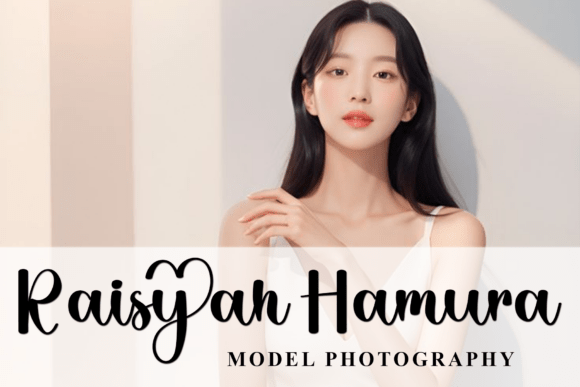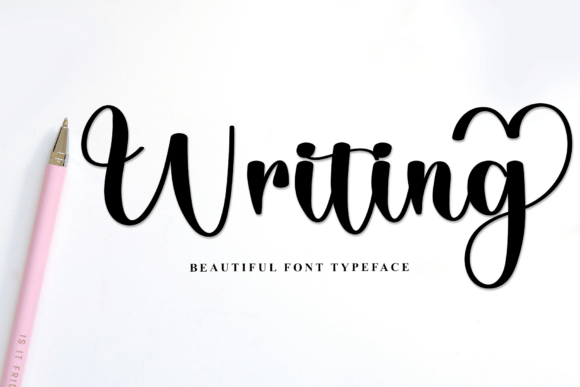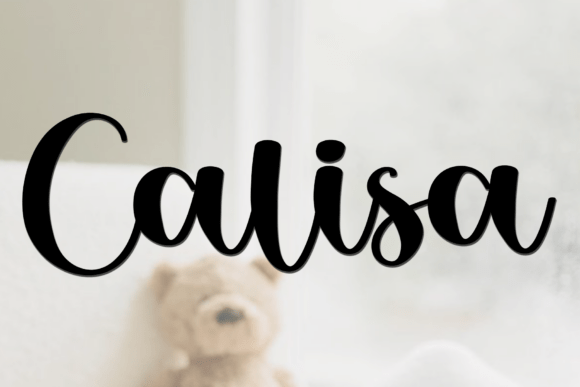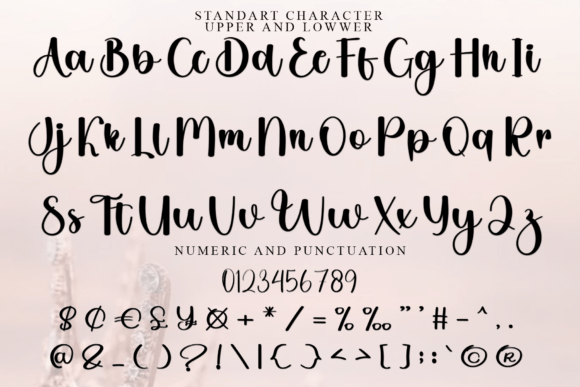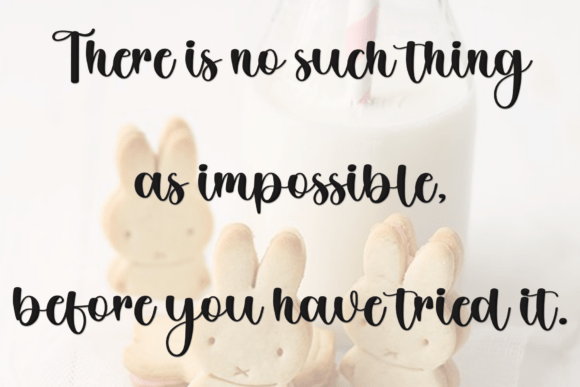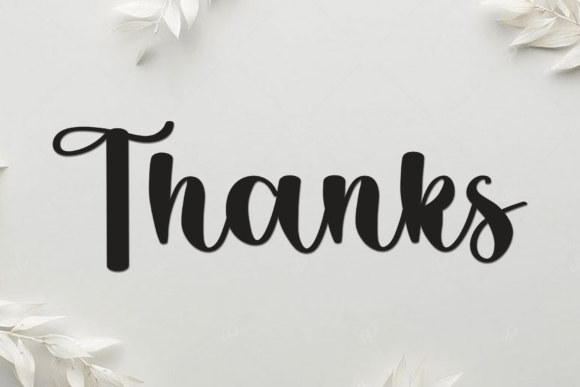
Daisy Wedding Font: Elevate Your Designs with a Touch of Elegance
Are you searching for a font that adds a unique and soft touch to your designs? Look no further than the Daisy Wedding Font. This beautiful and eye-catching font is designed to make your creative projects stand out with its distinctive strokes and special character. In this article, we’ll explore the features and benefits of the Daisy Wedding Font, and how it can elevate your designs across various artistic and creative fields.
A Unique and Versatile Font
The Daisy Wedding Font is a one-of-a-kind font that boasts a soft and unique touch. Its distinctive strokes give it a special character, making it perfect for a wide range of design projects, crafts, and other creative works. With various characters, this font is versatile and can be used to create stunning visual content that appeals to many audiences.
Ideal for Design Projects and Crafts
The Daisy Wedding Font is perfect for a wide range of design projects, including:
- Branding and packaging designs
- Digital marketing materials
- Crafts, such as scrapbooking and card making
- Artistic and creative projects, like illustrations and paintings
This font’s natural and elegant style makes it an excellent choice for designers and crafters who want to add a touch of sophistication to their work.
Enhance Your Designs with Daisy Wedding Font
The Daisy Wedding Font is designed to enhance your designs and make them more appealing to your target audience. Its unique and soft touch can add a touch of elegance to your visual content, setting it apart from the competition. Whether you’re working on a personal project or a client’s design brief, this font is sure to impress.
The Daisy Wedding Font offers several benefits for designers and crafters, including:
- Unique and distinctive character
- Versatility and flexibility
- Elegant and natural style
By using the Daisy Wedding Font, designers and crafters can elevate their designs, save time, and produce high-quality visual content that resonates with their audience.
In conclusion, the Daisy Wedding Font is a beautiful and eye-catching font that can add a touch of elegance to your designs. Its unique and soft touch, versatility, and compatibility with various applications make it an ideal choice for designers, crafters, and artists. Whether you’re working on a personal project or a client’s design brief, this font is sure to impress. So why wait? Download the Daisy Wedding Font today and take your designs to the next level.